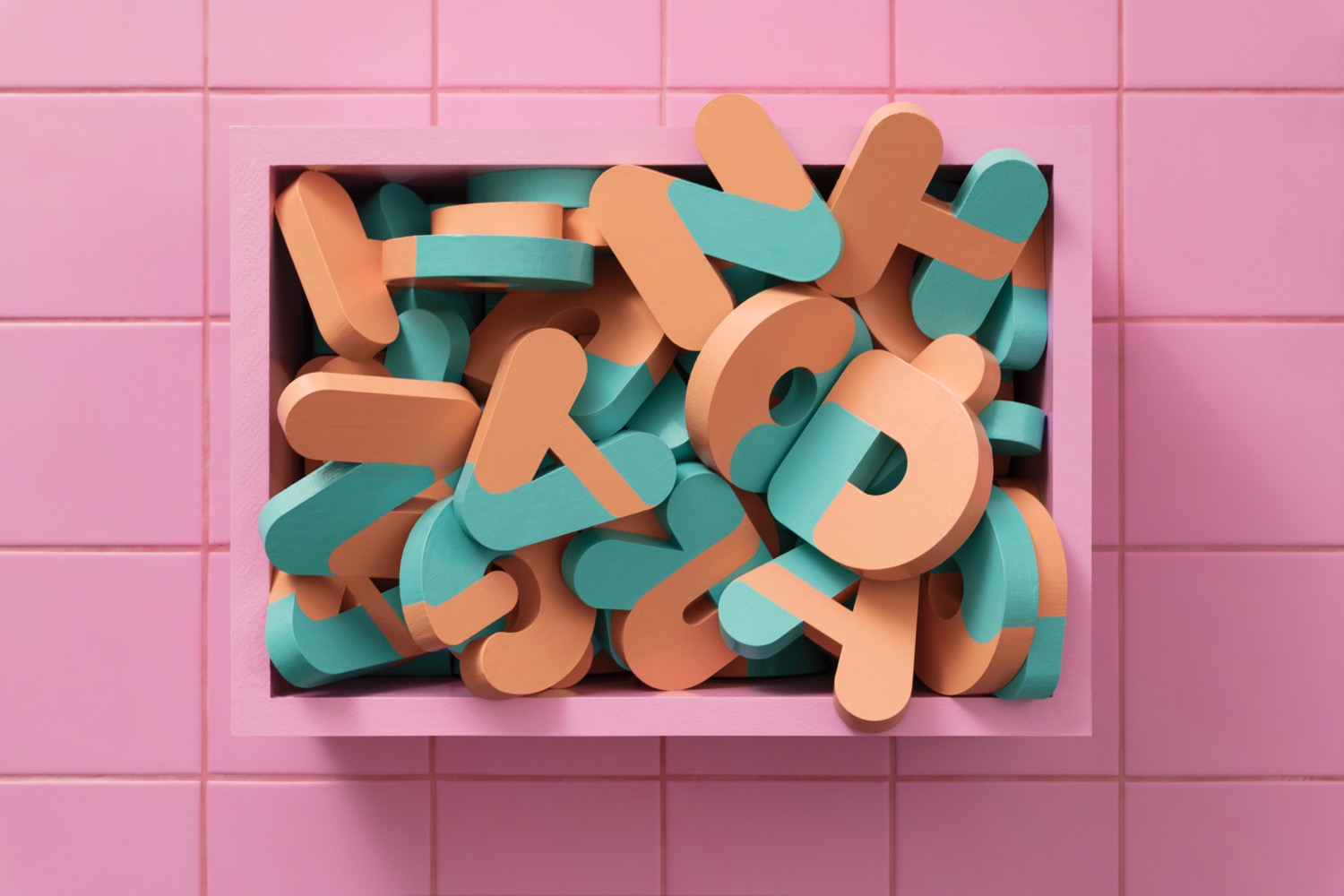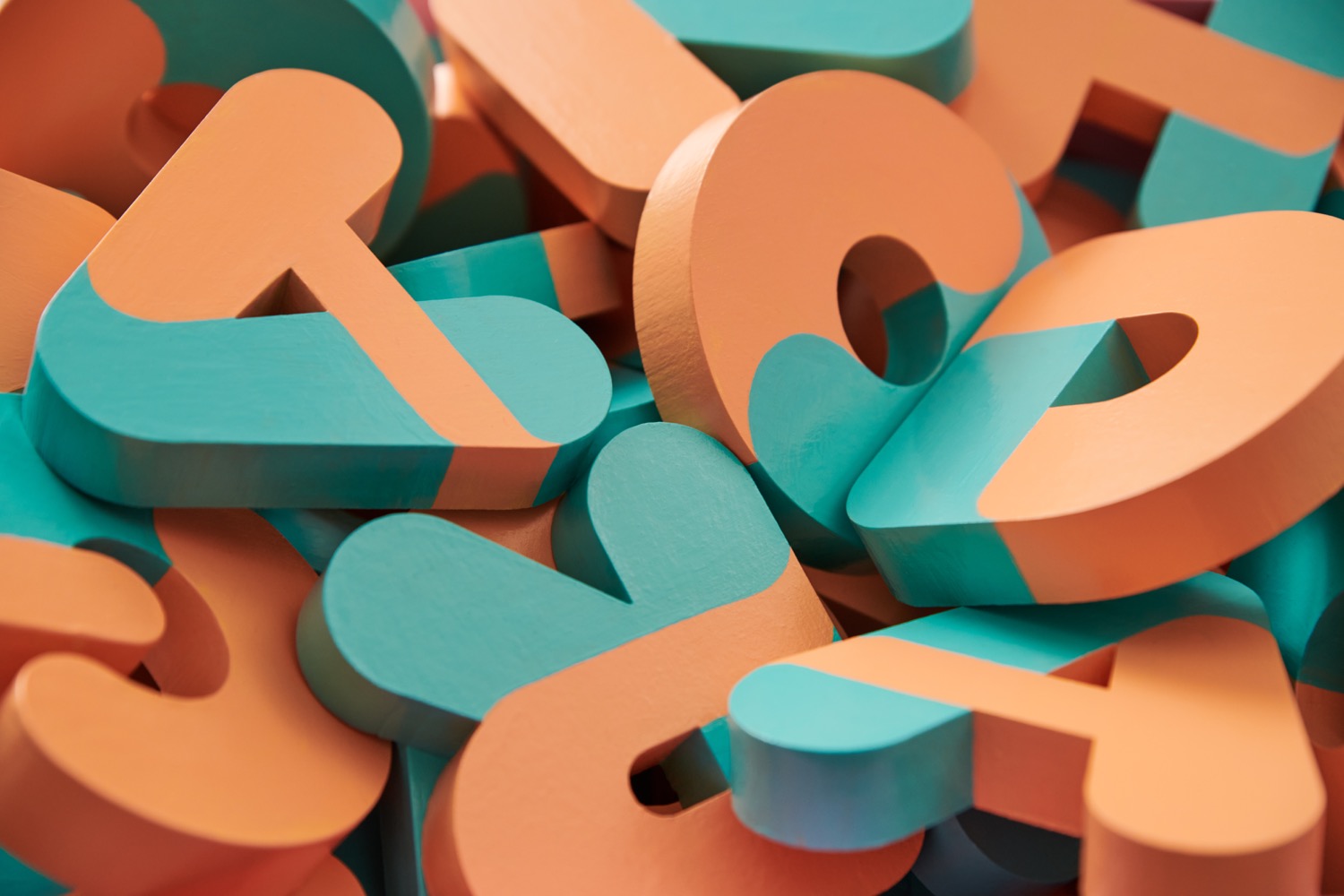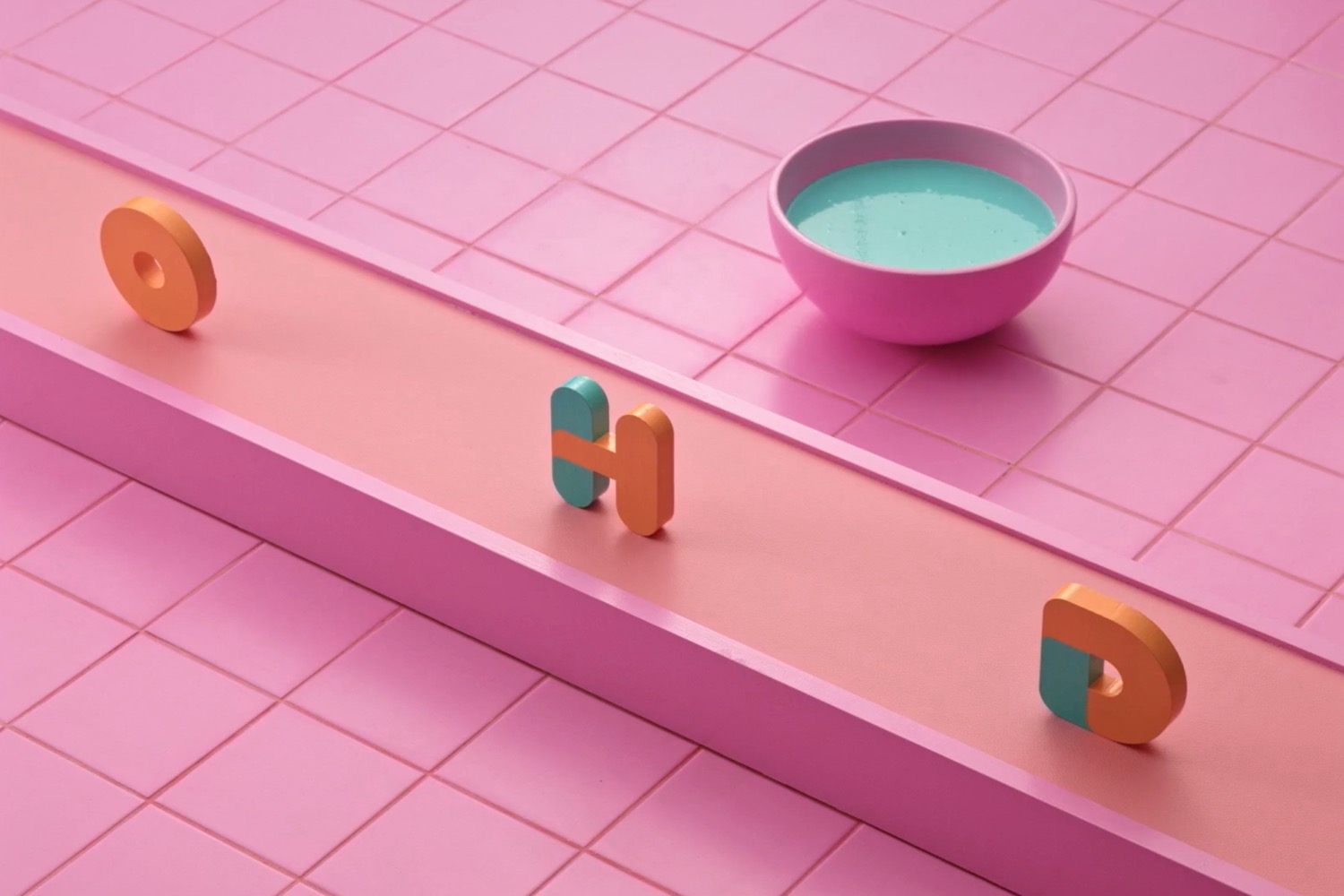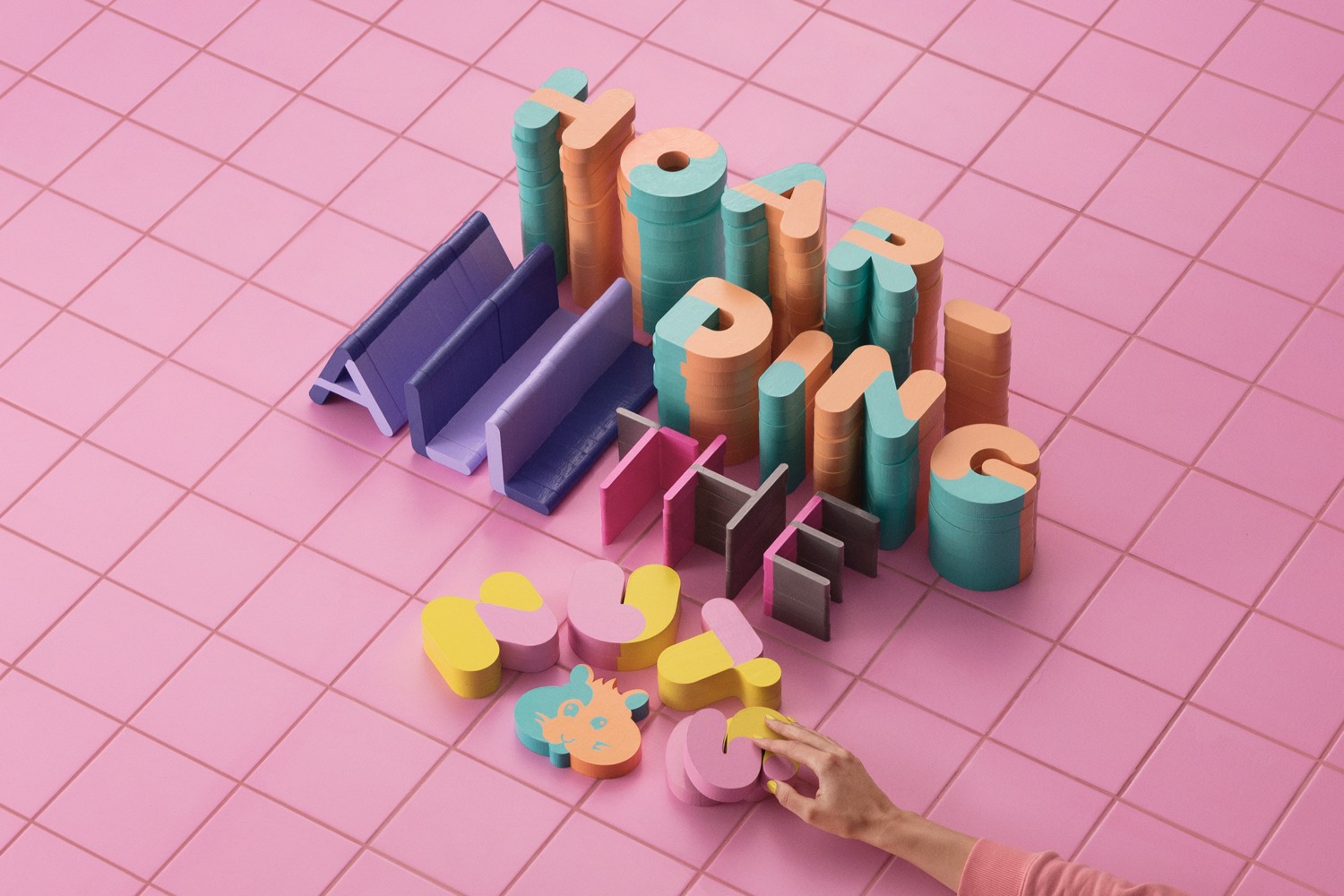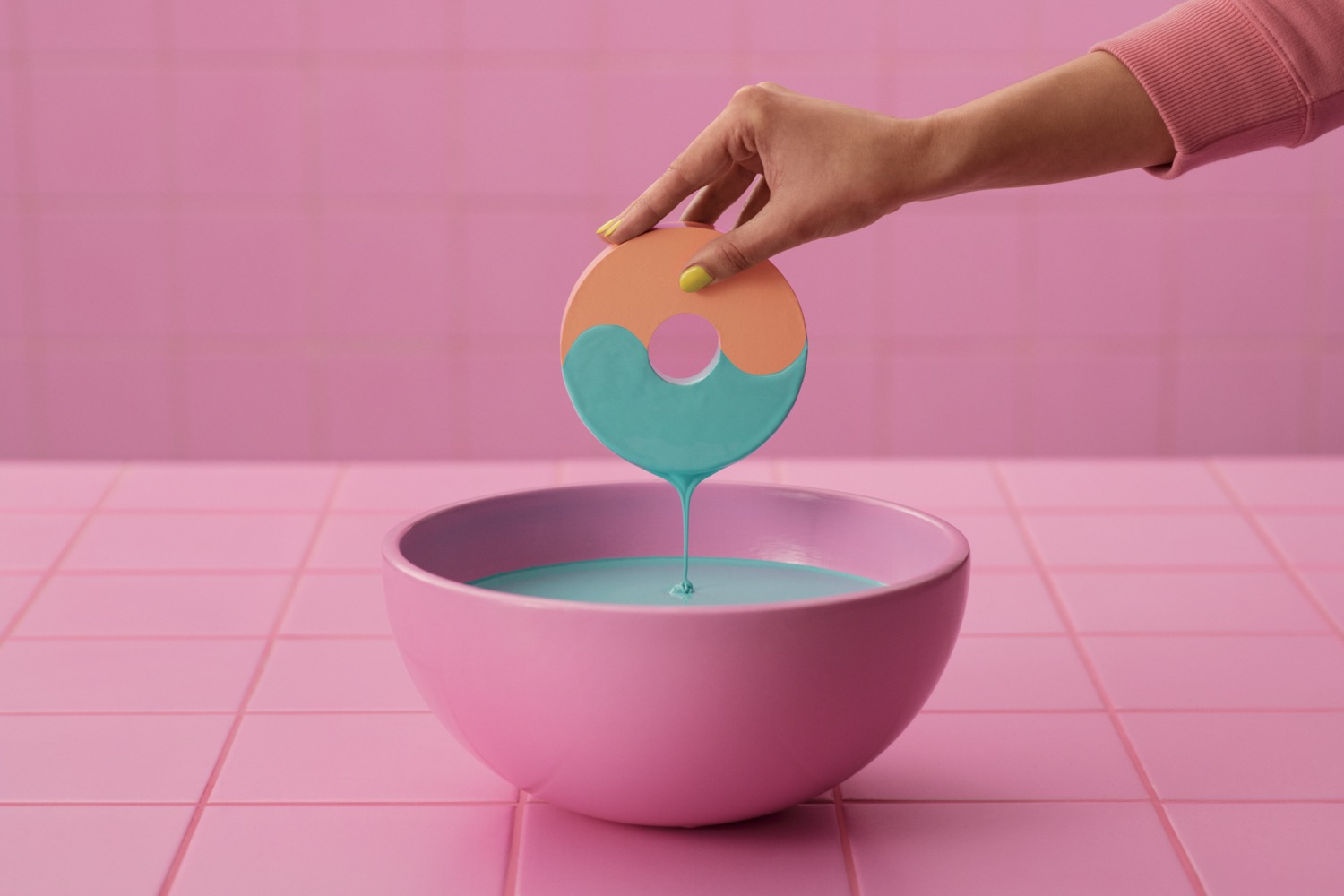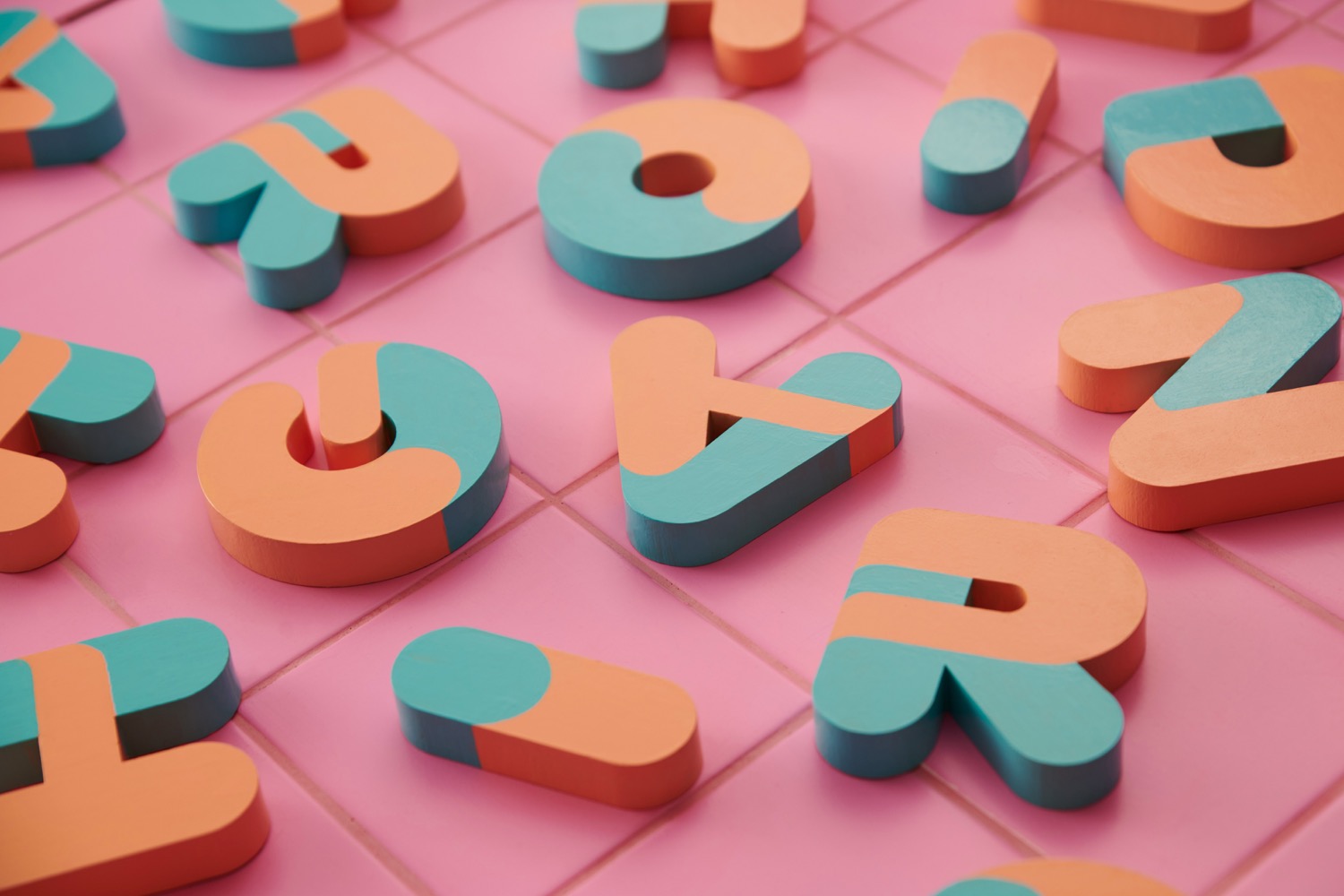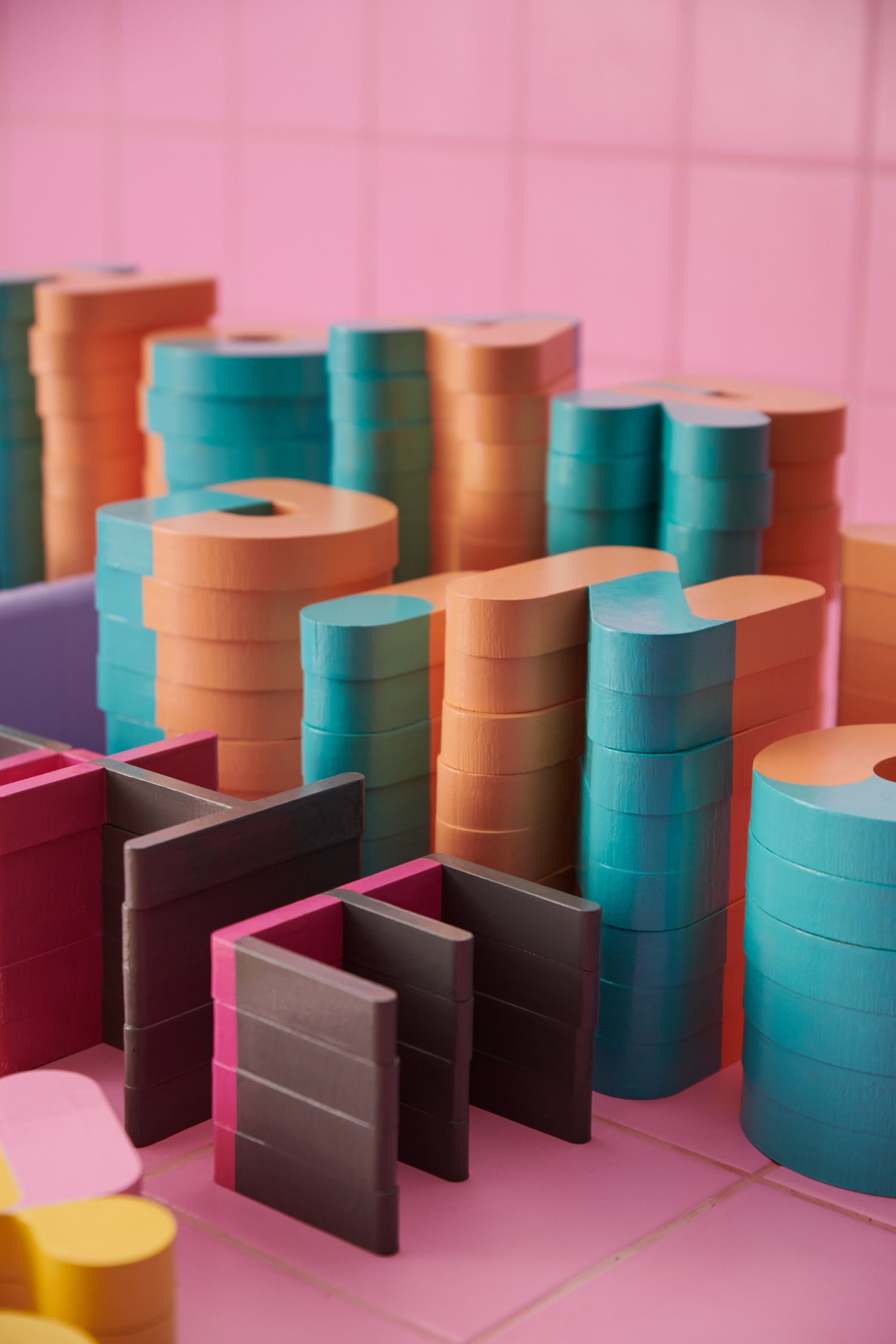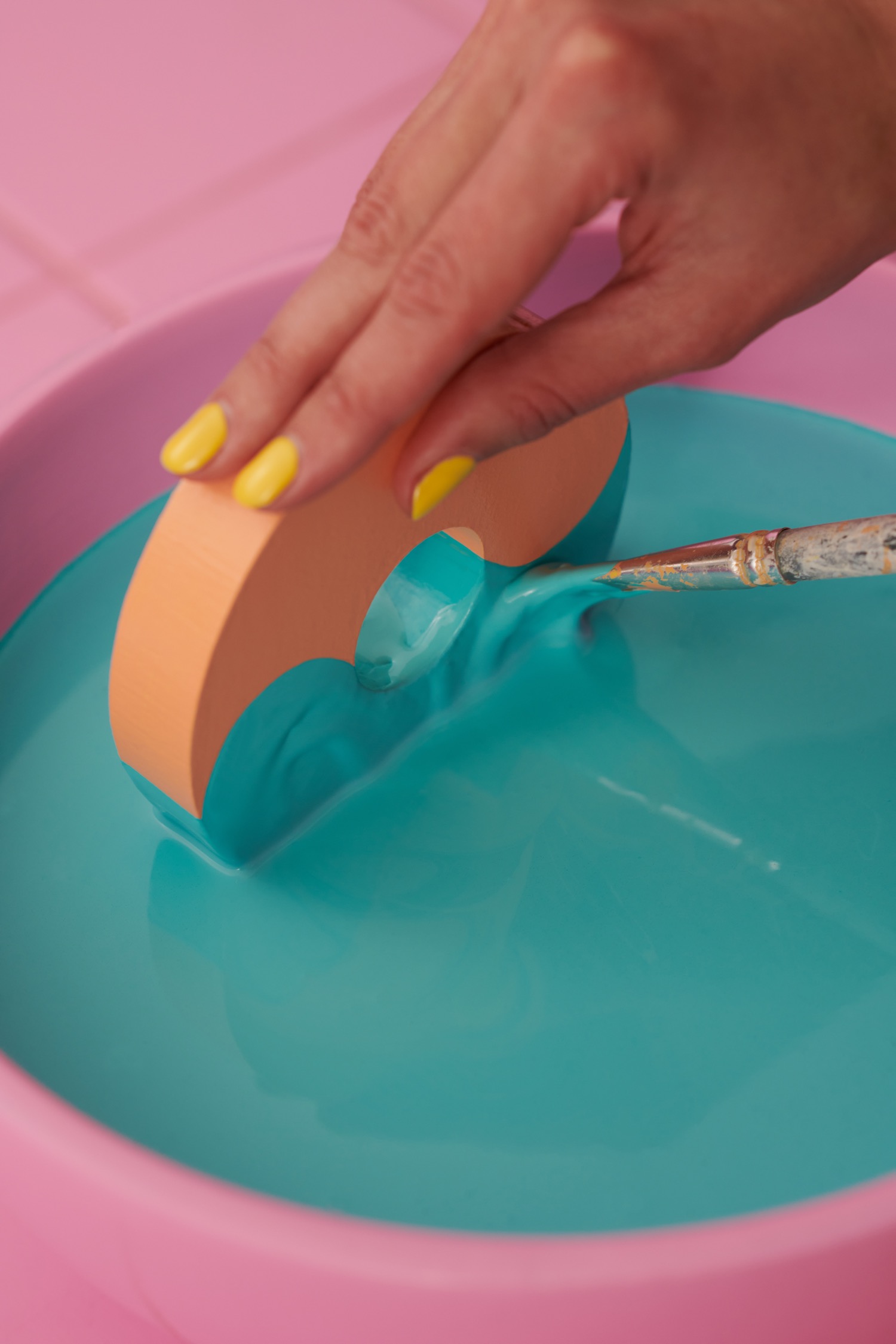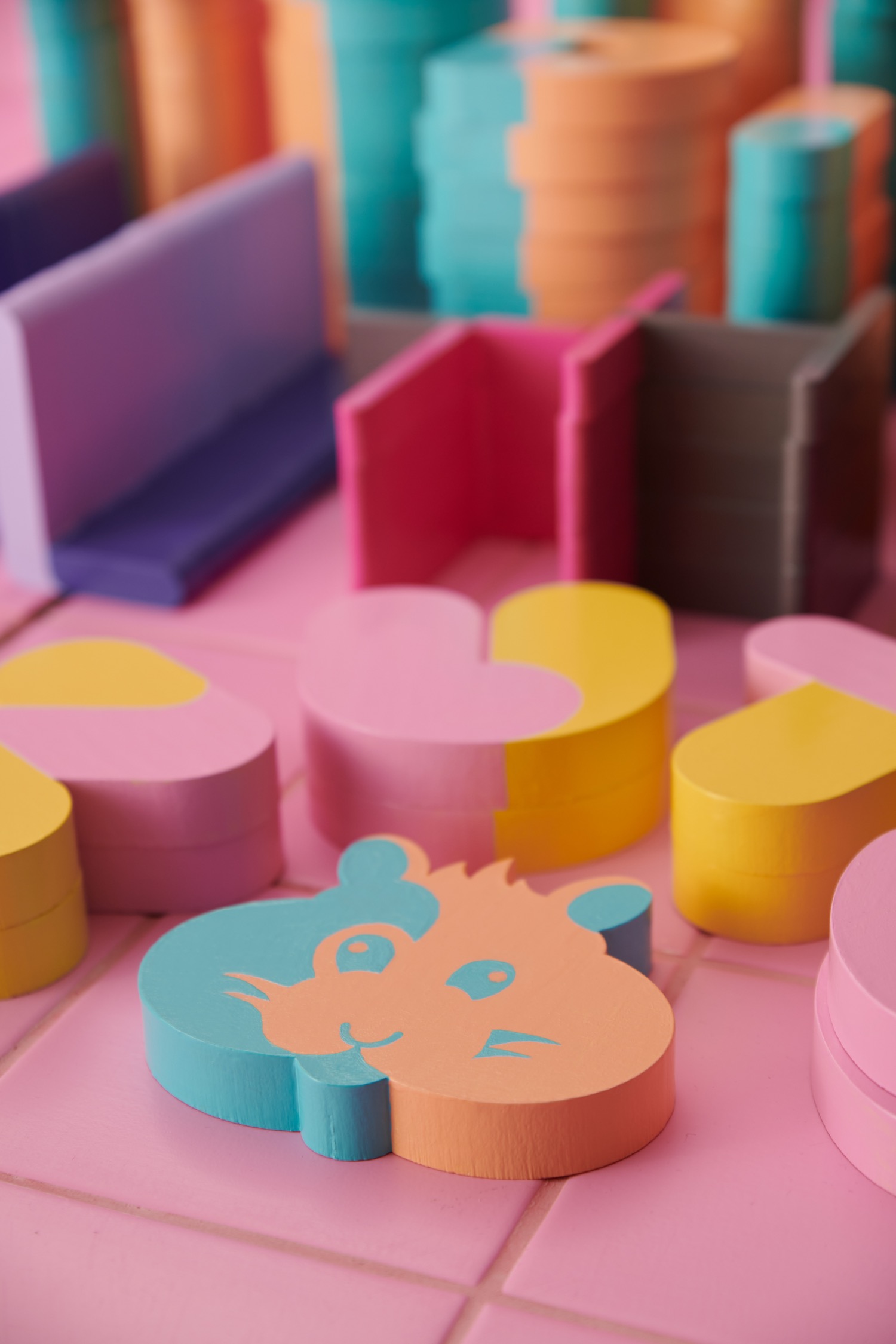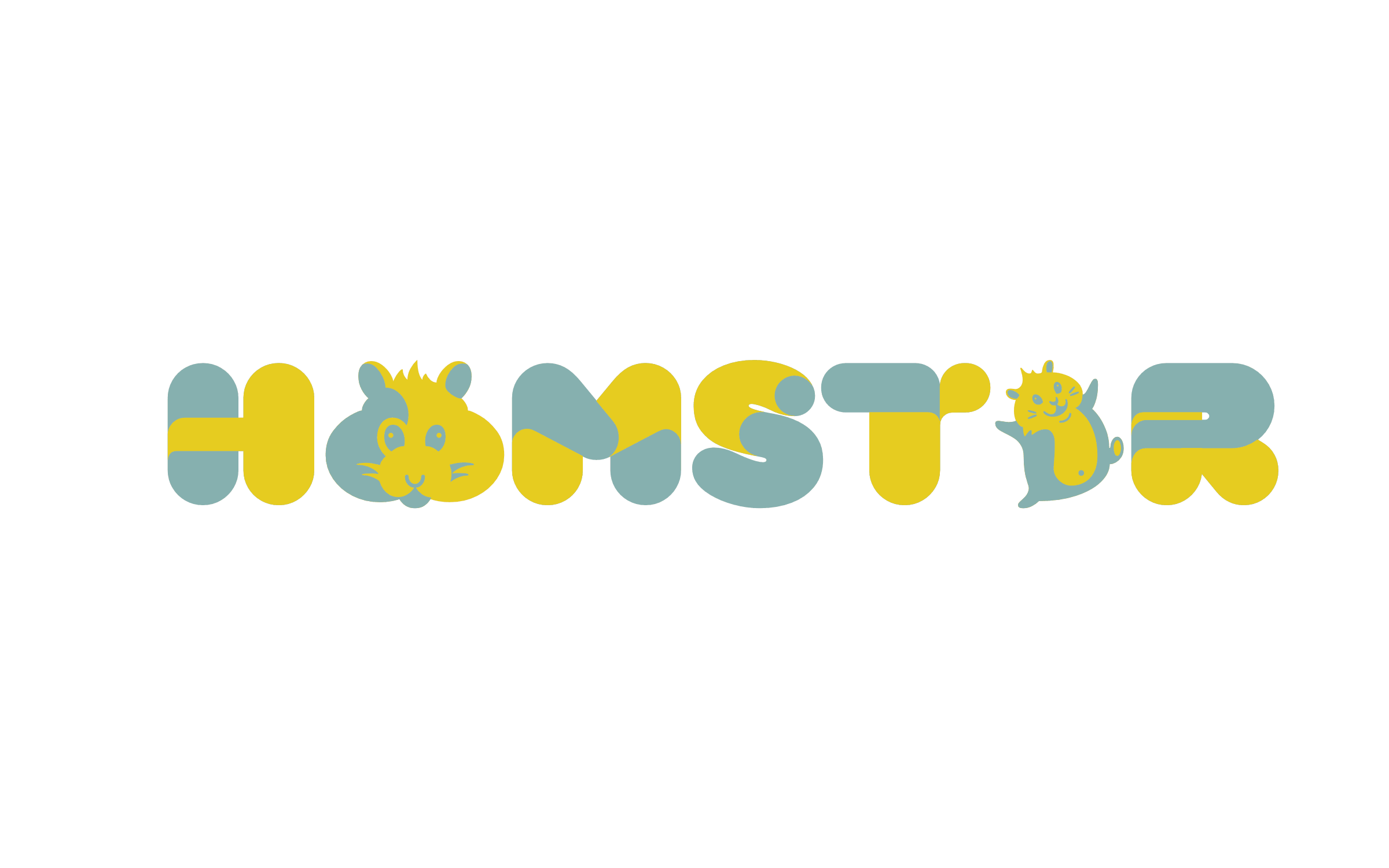
Berlin-based type foundry Fontwerk is introducing the Hamster typeface by Joe Stitzlein. Hamster is a colorful playground for designers. Inspired by the pets of his childhood friends, the construction of the letterforms follows the tubular habitrails in which the cute namesakes live.
It was not only the transparent, partly colored plastic tubes and terrariums that made an impression on the designer, but also the animals. Their two-tone fur inspired Joe Stitzlein to design his typeface as a Color Font. The rounded ends and bold font weights are reminiscent of the rodents distinctive chubby cheeks. The characteristics cuddly and chubby therefore apply equally to both animal and font. The lighter weights appear less playful and would make for a perfect logotype for young fashion brands, for example.
Hamster is a capital display typeface, if you select the lowercase letters they invert the colors for additional variation. The six fonts from Thin to ExtraBlack each contain five hamster characters drawn by illustrator Laurie Schmitt, as well as 19 decorative ornaments.
We wanted Hamster to be a celebration of joy and delight, explains Joe Stitzlein. Therefore, he had color expert Leslie Stitzlein define an additional eight fixed combinations, some colorful and playful, some subtle and elegant. A non-color font and thus traditionally usable variant rounds off the palette. In total, ten variable fonts and 60 static fonts are available.
Hamster is a refreshingly playful, fun font full of typographic possibilities. Its the perfect addition to all designers type palettes, who like this namesake, are keen on collecting, fonts rather than nuts, of course ;) But unlike the cuddly role model, this hamster doesnt even need to be fed except with happy ideas.
To celebrate its release, Fontwerk worked in collaboration with SNASK, the internationally renowned Stockholm-based design agency on a video campaign to launch the typeface. Bold, bright and beautiful, the idea was to bring this tactile and colorful font to life in a unique manner.